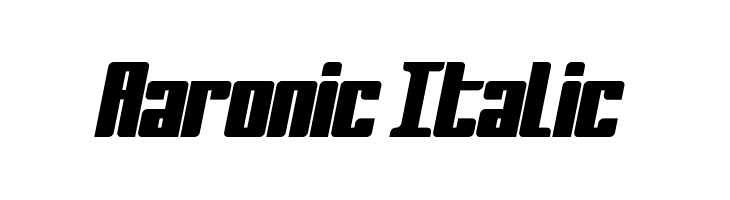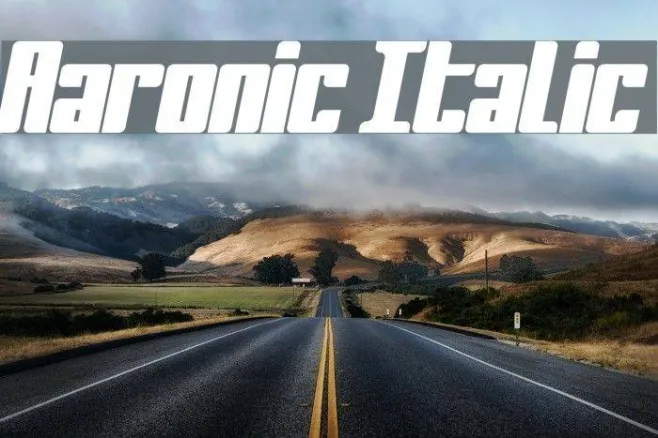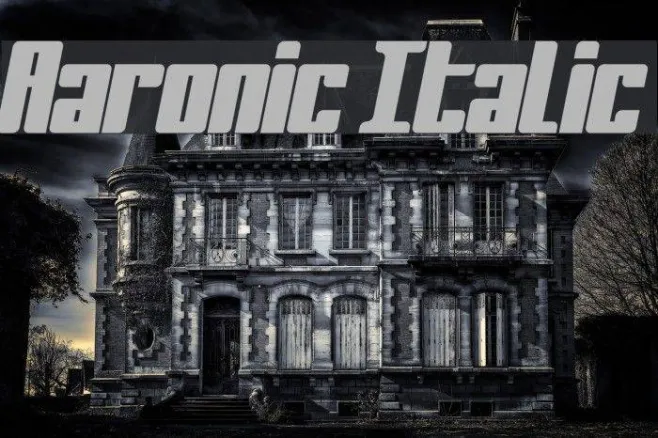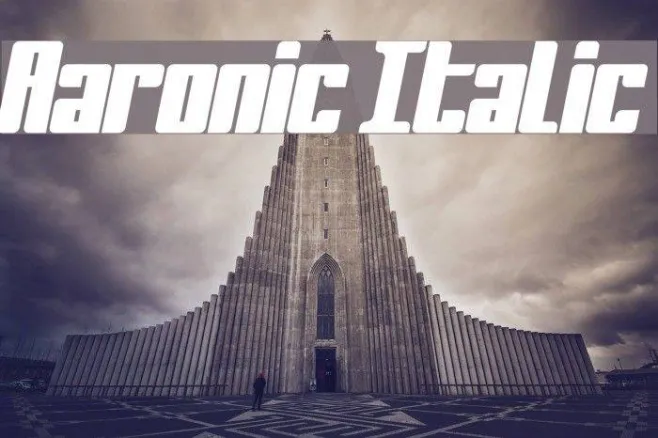
Aaronic Italic Font
Aaronic Italic Description
This font features a bold and dynamic design with a strong italic slant, giving it a sense of movement and energy. The characters are wide and blocky, with a consistent stroke width that adds to its bold appearance. The uppercase and lowercase letters maintain a uniform style, while the numbers and special characters are designed to match the overall aesthetic. The font's geometric shapes and sharp angles contribute to its modern and assertive look, making it ideal for attention-grabbing headlines and impactful designs.
| Proposed Projects | Ideal for sports branding, dynamic posters, and modern advertising campaigns. |